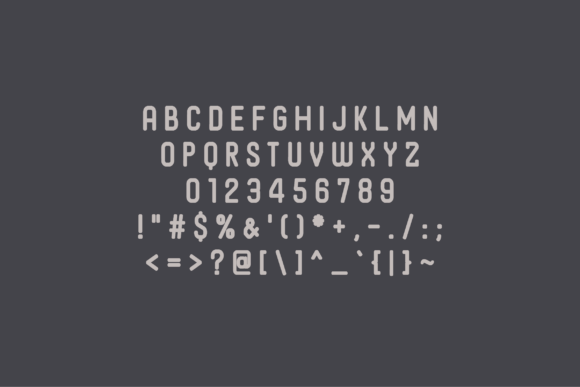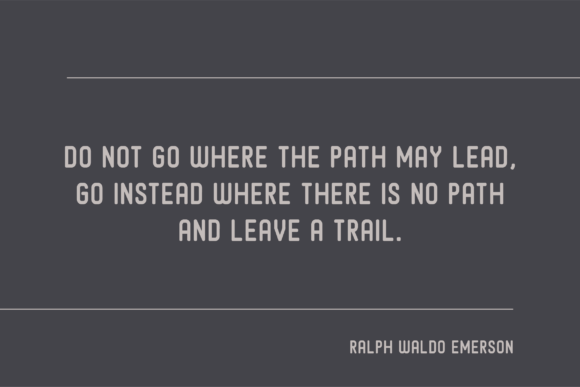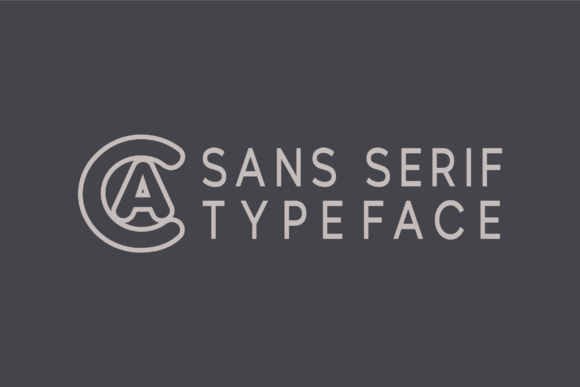
Introducing Hallowink: The Modern Sans Serif Typeface for Creative Projects
In the world of typography, a new font has emerged that’s making waves among designers and crafters alike. Say hello to Hallowink, a modern, classy sans serif typeface that’s perfect for a wide range of creative projects. Whether you’re looking to create stunning logos, elegant wedding invitations, or eye-catching advertisements, Hallowink is the perfect choice.
What is Hallowink?
Hallowink is a sans serif typeface that boasts a clean and minimalist design. It features upper characters, numbers 0-9, and a range of punctuation and symbols, making it an extremely versatile font. The font’s simplicity and elegance make it perfect for a variety of applications, from print materials like magazines and brochures to digital projects like social media graphics and website headers.
Key Features of Hallowink
- Modern and Classy Design: Hallowink’s sans serif design gives it a sleek and contemporary look that’s perfect for modern designs.
- Upper Characters, Numbers, and Symbols: The font includes a wide range of characters, numbers, and symbols, making it versatile and practical.
- Extremely Versatile: Hallowink can be used for a variety of projects, from logos and invitations to advertisements and print materials.
Why Choose Hallowink?
So, why should you choose Hallowink for your next project? Here are just a few reasons:
- Elegance and Sophistication: Hallowink’s clean and minimalist design gives it an air of elegance and sophistication, perfect for high-end designs.
- Readability: The font’s clear and simple design makes it easy to read, even at small sizes.
- Customization: With a wide range of characters and symbols, you can customize your text to fit your project’s specific needs.
Hallowink is perfect for designers and crafters who want to add a touch of modern elegance to their projects. Whether you’re creating:
- Logos: Hallowink’s clean design makes it perfect for logos that need to be simple yet effective.
- Wedding Invitations: The font’s elegance and sophistication make it perfect for wedding invitations and other formal events.
- Advertisements: Hallowink’s modern design makes it perfect for advertisements that need to grab attention.
- Print Materials: The font is perfect for print materials like magazines, brochures, and flyers.
Tips for Using Hallowink
Here are a few tips for getting the most out of Hallowink:
- Experiment with Font Sizes: Hallowink’s clear design makes it easy to read at a variety of font sizes.
- Play with Color: The font’s simplicity makes it perfect for experimenting with different colors and textures.
- Mix and Match: Try pairing Hallowink with other fonts to create a unique and eye-catching design.